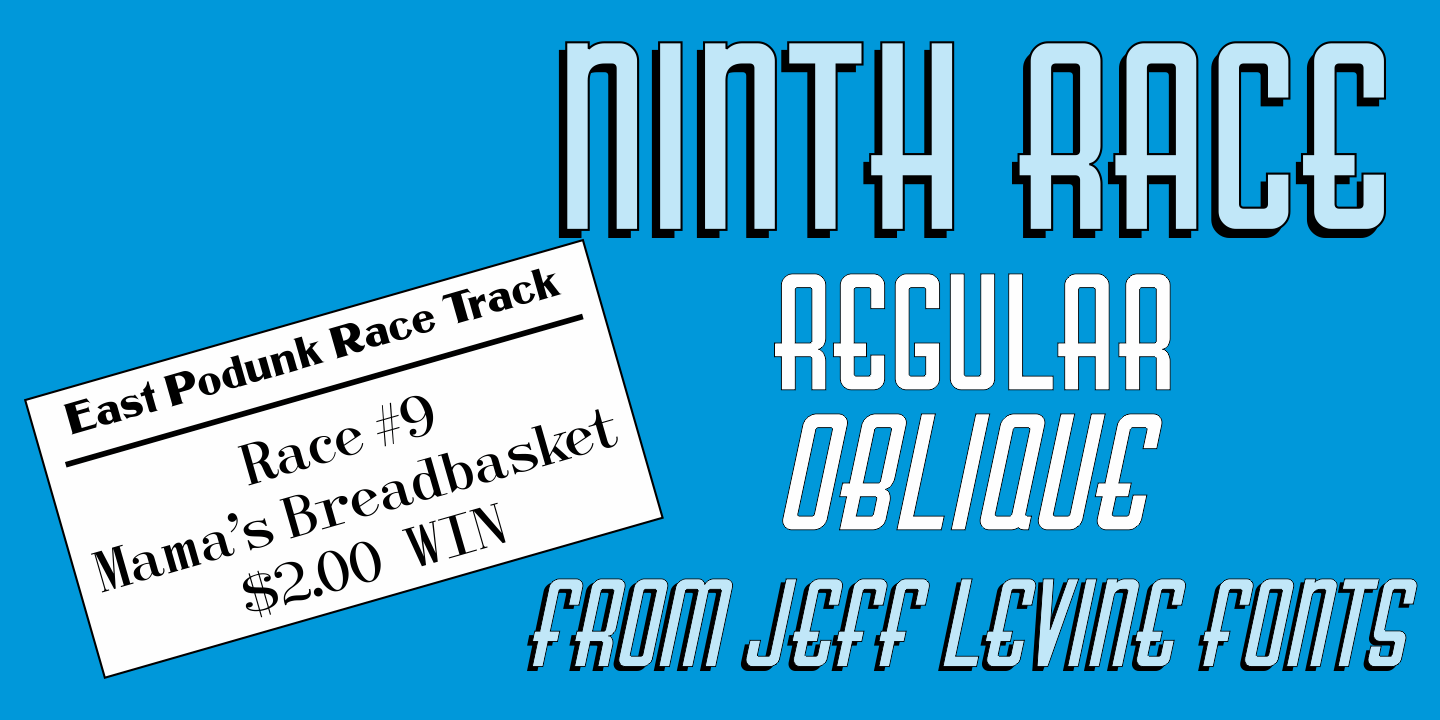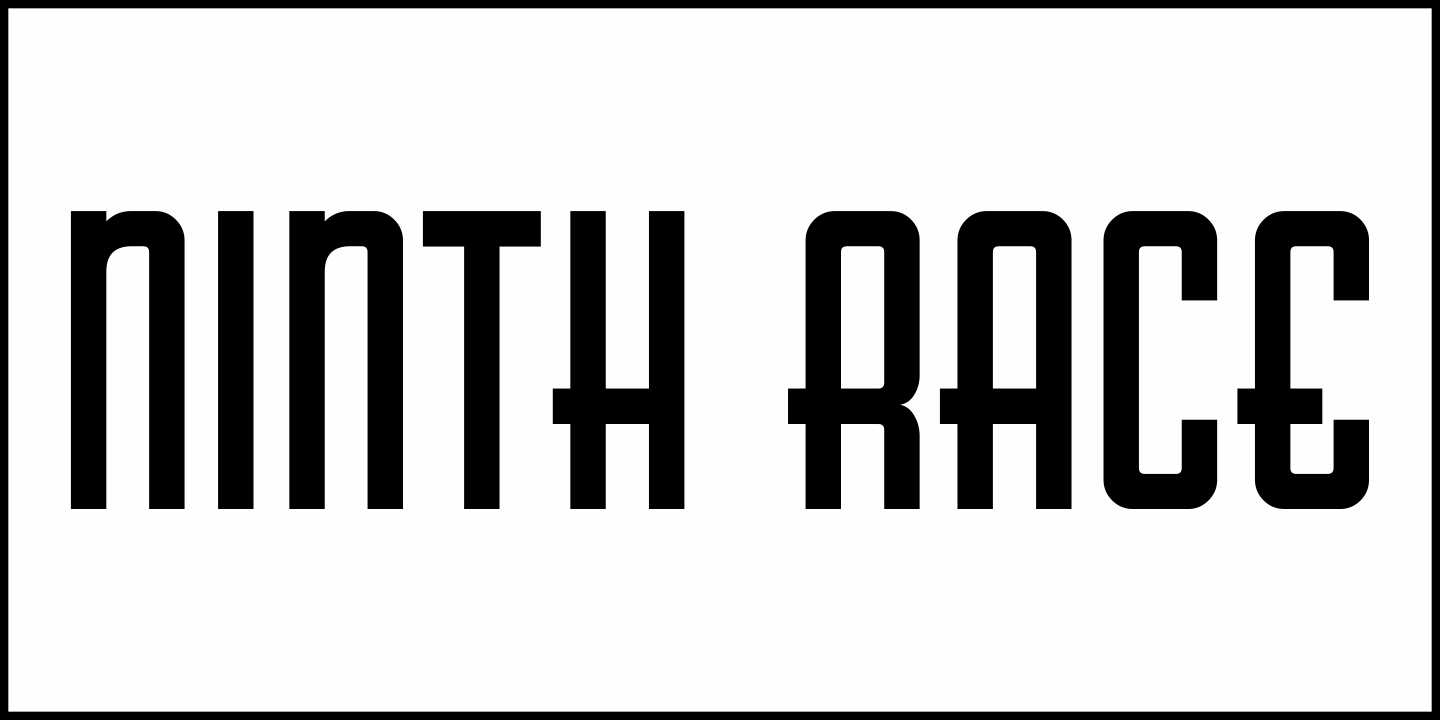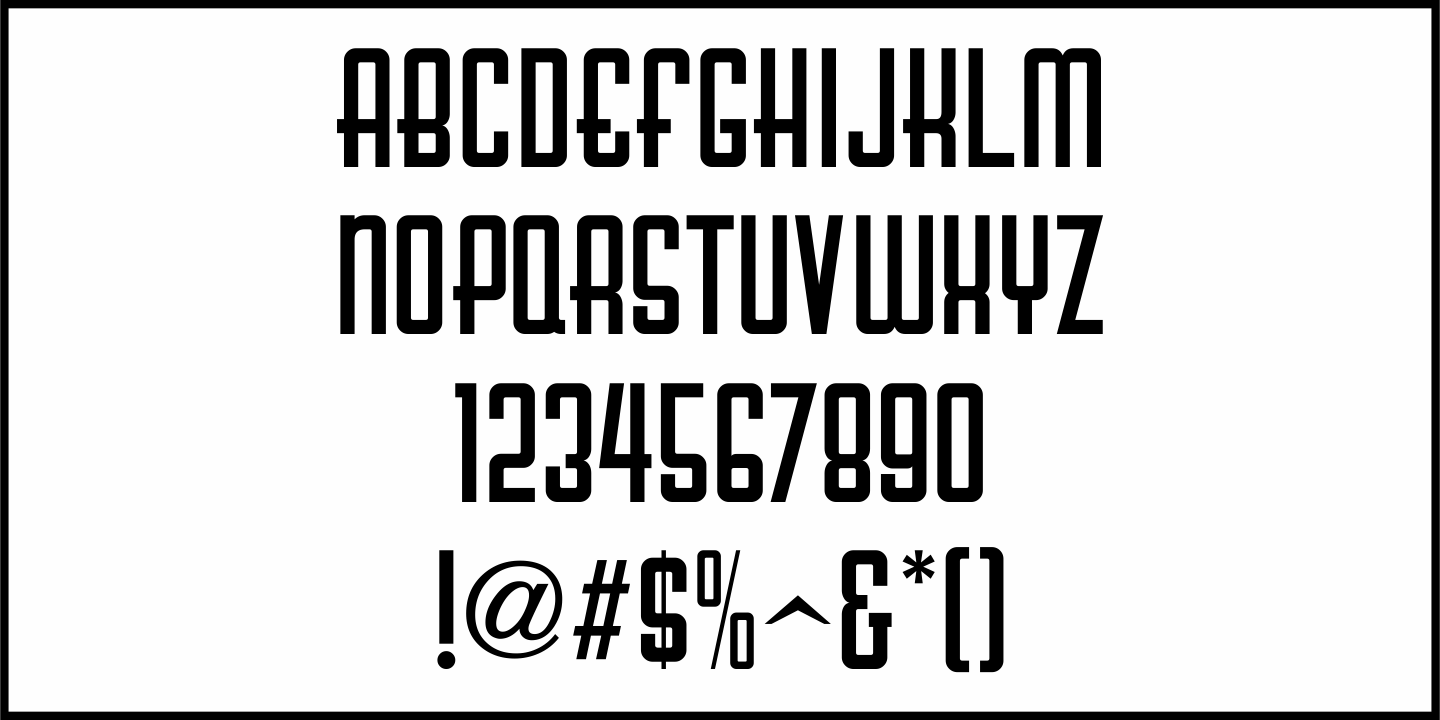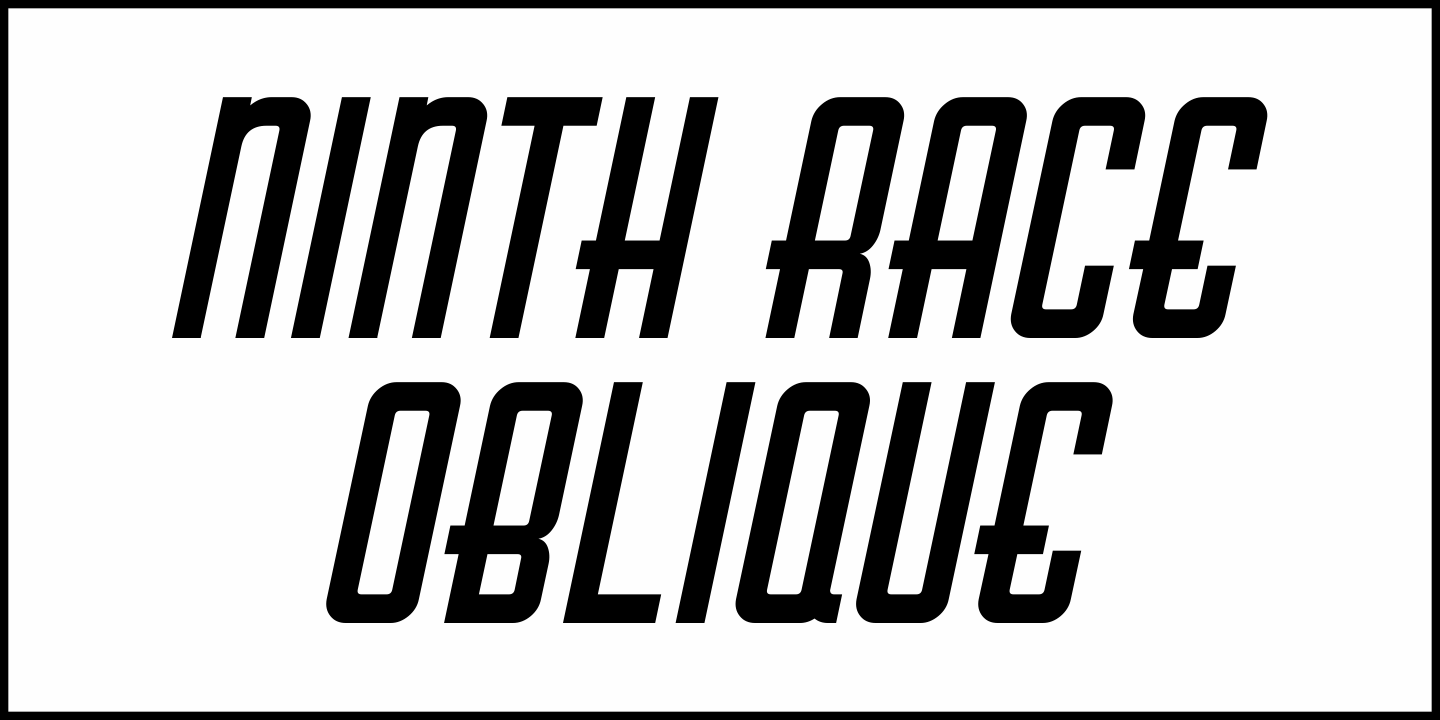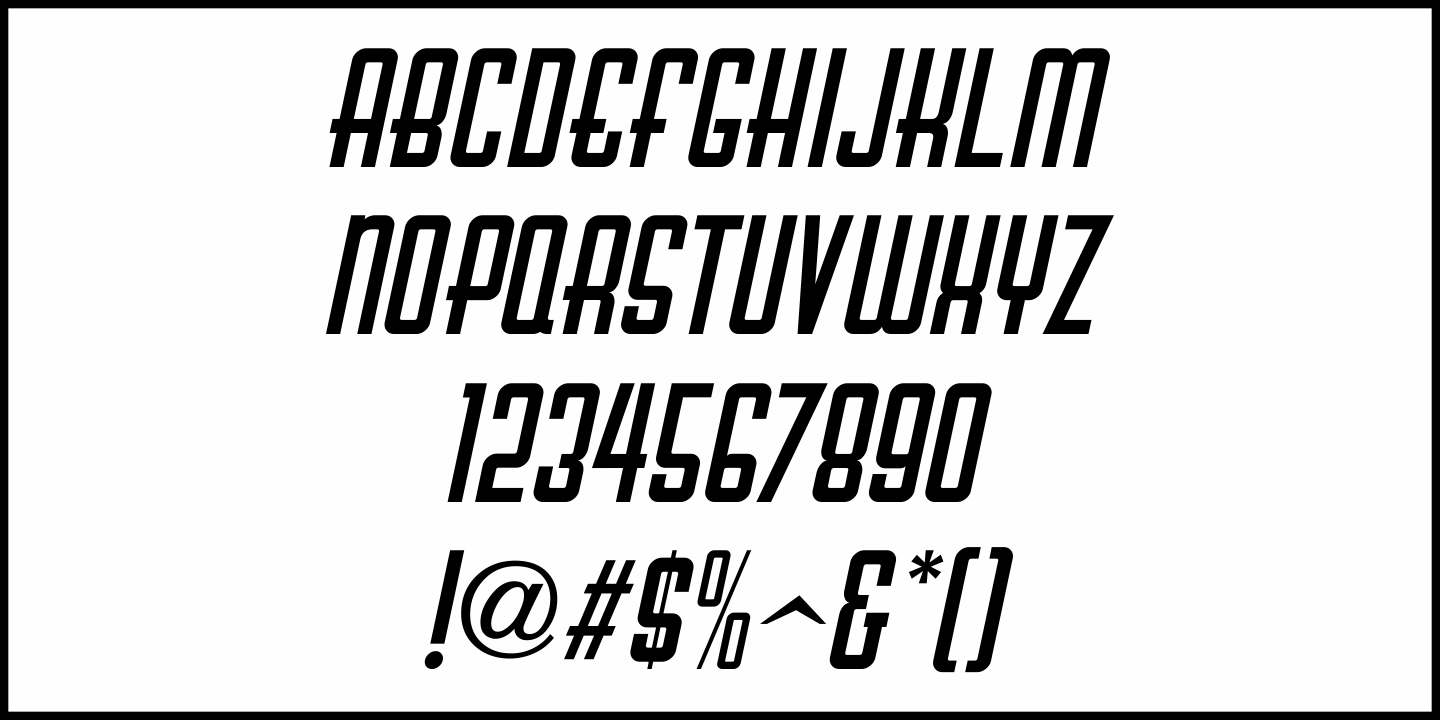
Ninth Race
A 1930s poster advertising horse racing at Havana, Cuba's Oriental Park inspired Ninth Race JNL – a condensed Art Deco sans serif type face with rounded corners; available in both regular and oblique versions.